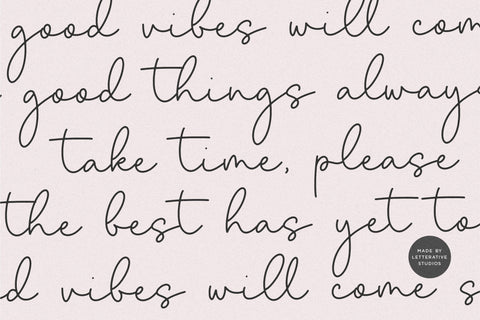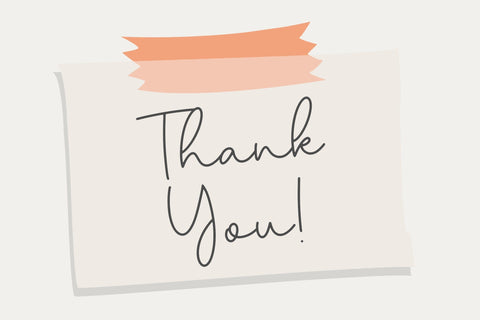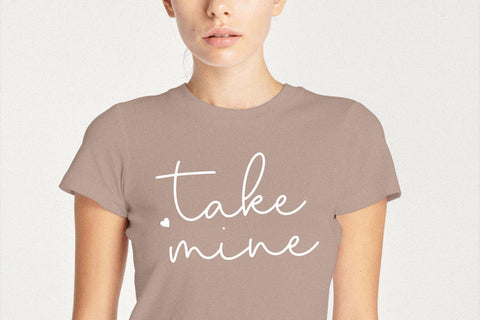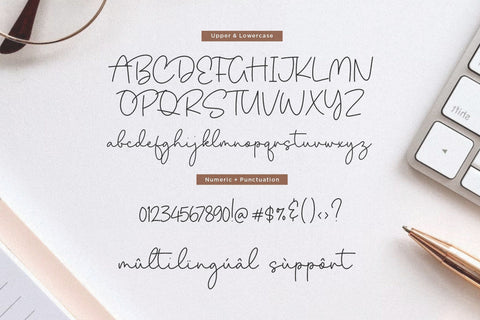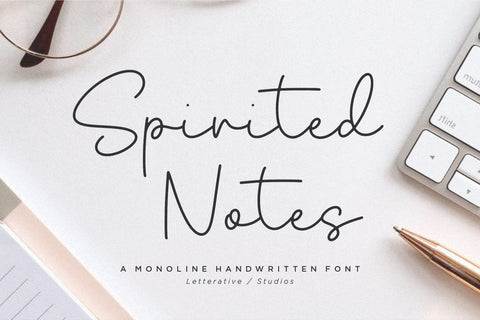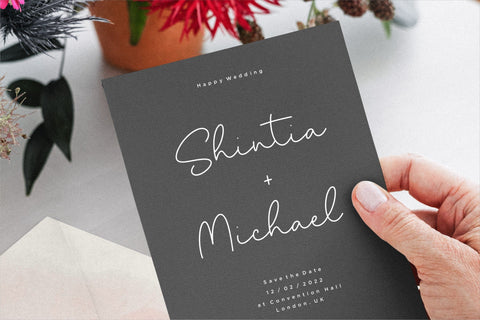
Spirited Notes Monoline Handwritten Font
Introducing by Letterative Studio : Spirited Notes Font
Spirited Notes is a Monoline Handwritten Font
Spirited Notes is a modern, monoline handwritten script font. Whether you’re using it for crafts, digital design, presentations, or making greeting cards, this font has the potential to become your favorite go-to font, no matter the occasion!
Spirited Notes also multilingual support